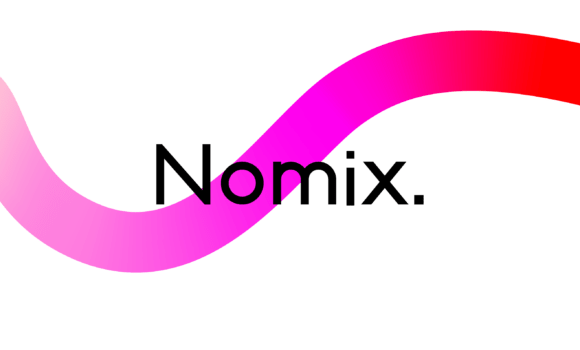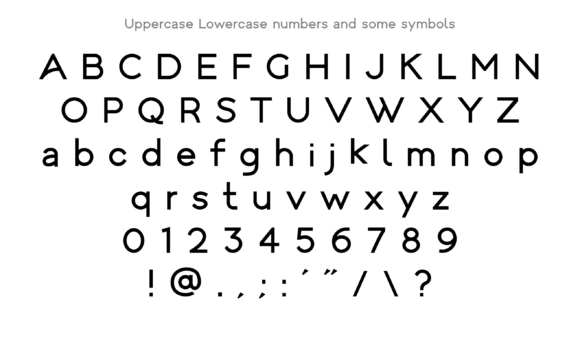
Introduction to Nomix Font
Nomix — A Modern Sans-Serif Typeface Nomix is a clean, contemporary sans-serif font crafted for versatility and professional appeal.
Designed with precision, it balances modern minimalism with subtle character, making it perfect for branding, editorial design, digital interfaces, and corporate communication Its well-proportioned letterforms ensure readability across print and screen, while its refined aesthetic adds a sophisticated, forward-thinking edge to any project.